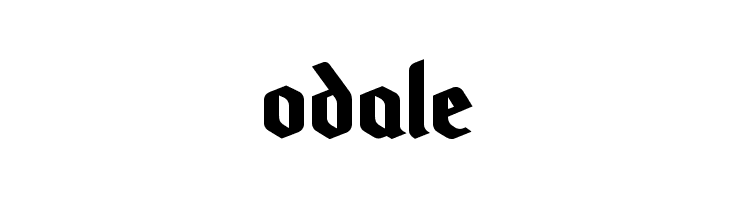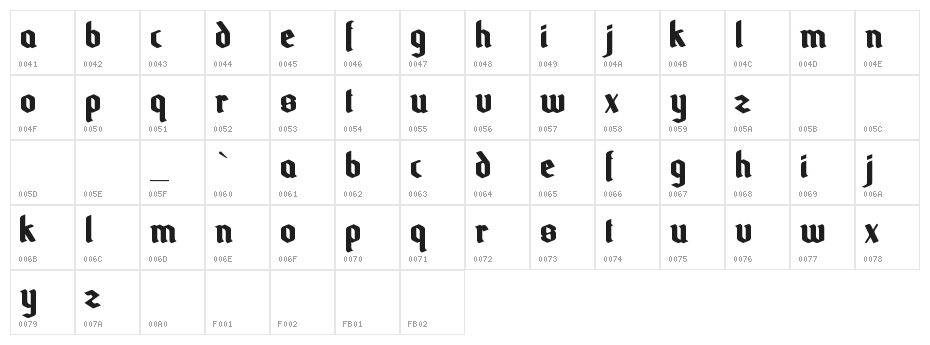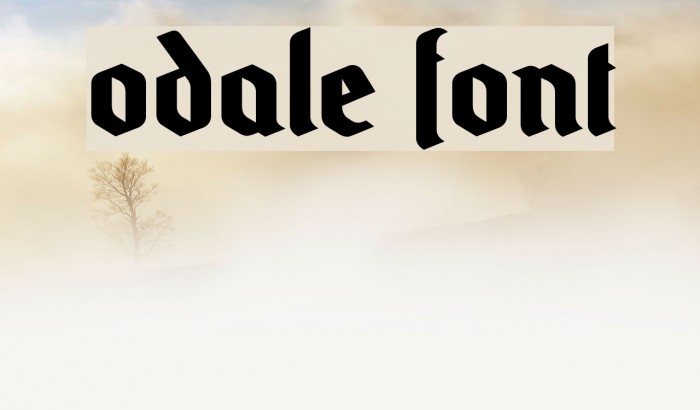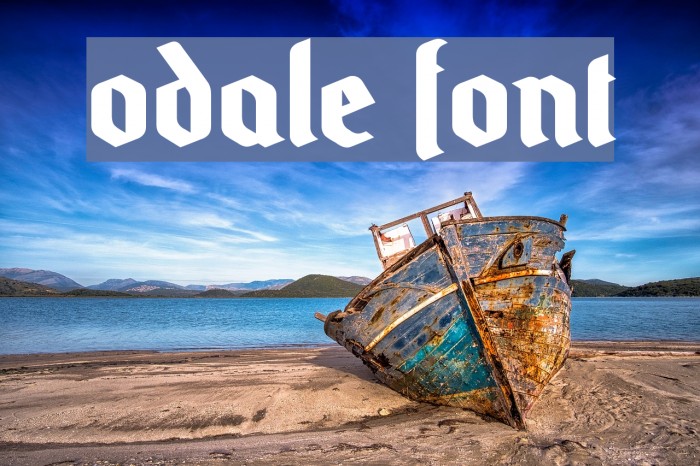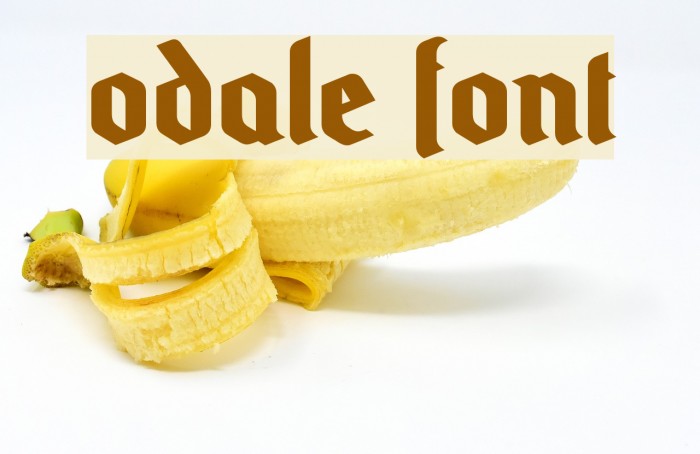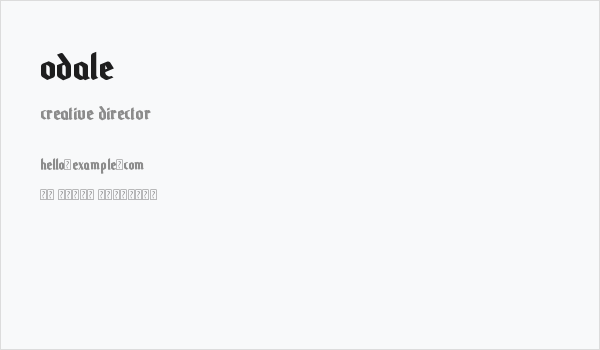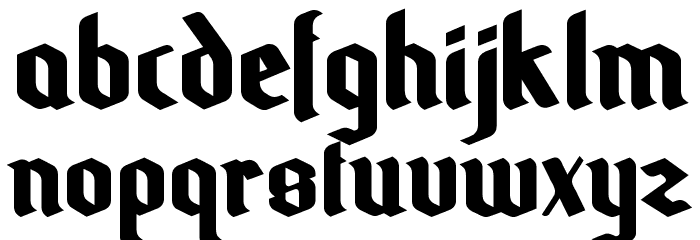
Odale Font
Odale Description
This font embodies a bold and striking blackletter style, characterized by its sharp, angular lines and dramatic presence. The letters are intricately designed with a gothic flair, showcasing a historical and traditional aesthetic. The uppercase and lowercase letters maintain a consistent style, with a strong emphasis on vertical strokes and pointed serifs. The font's unique design elements make it stand out, offering a sense of elegance and authority. Its distinct appearance is reminiscent of medieval script, making it suitable for projects that require a touch of antiquity and sophistication.
| Proposed Projects | Ideal for use in branding, posters, book covers, and any design requiring a historical or gothic touch. |